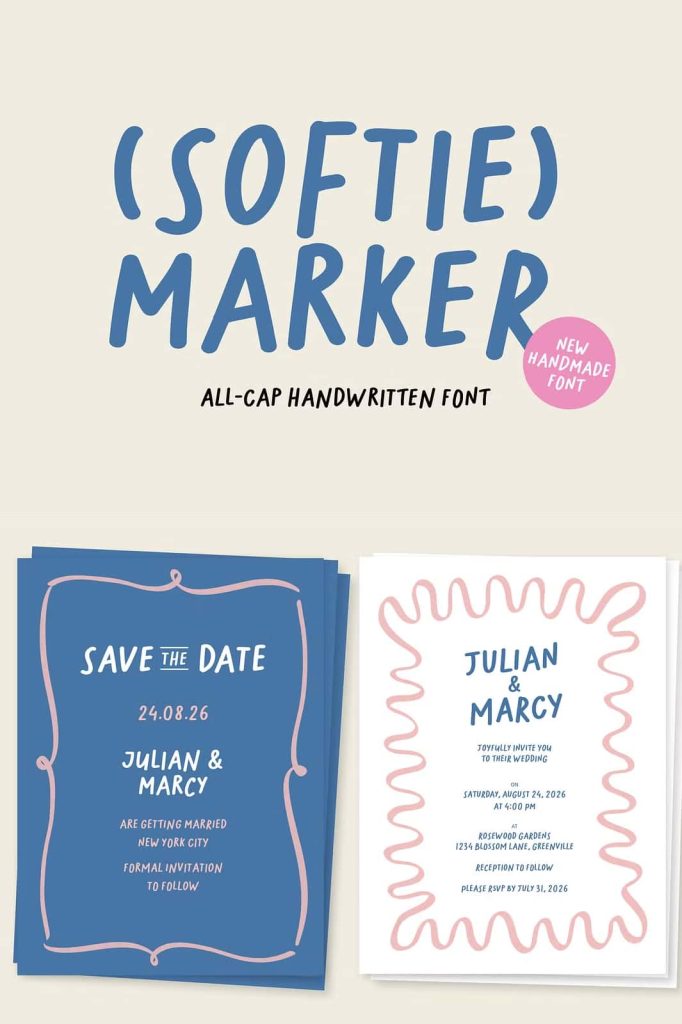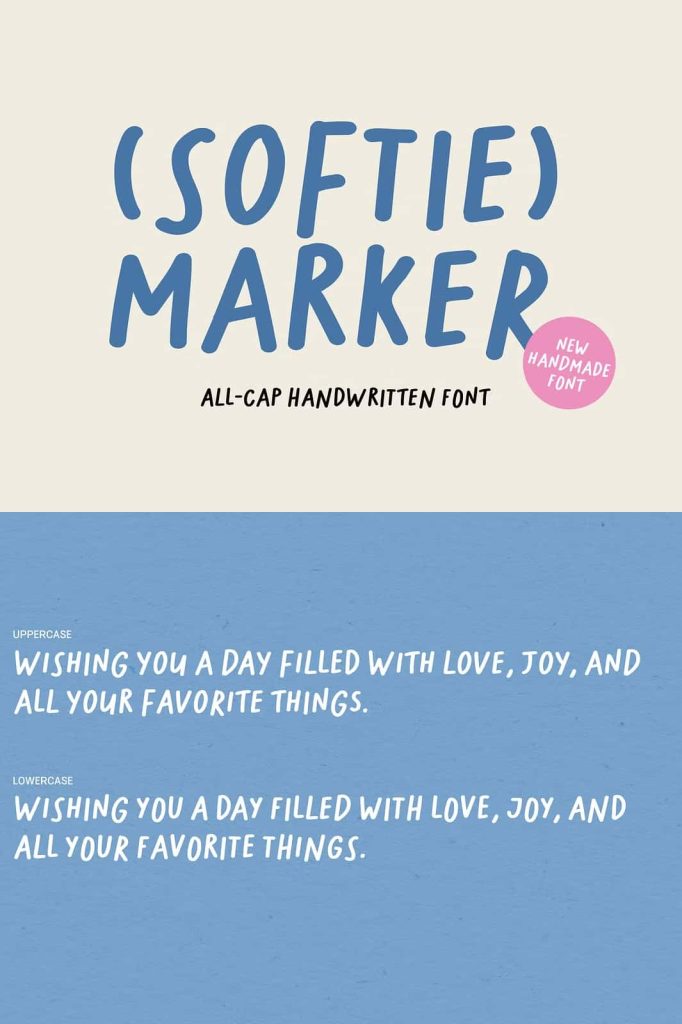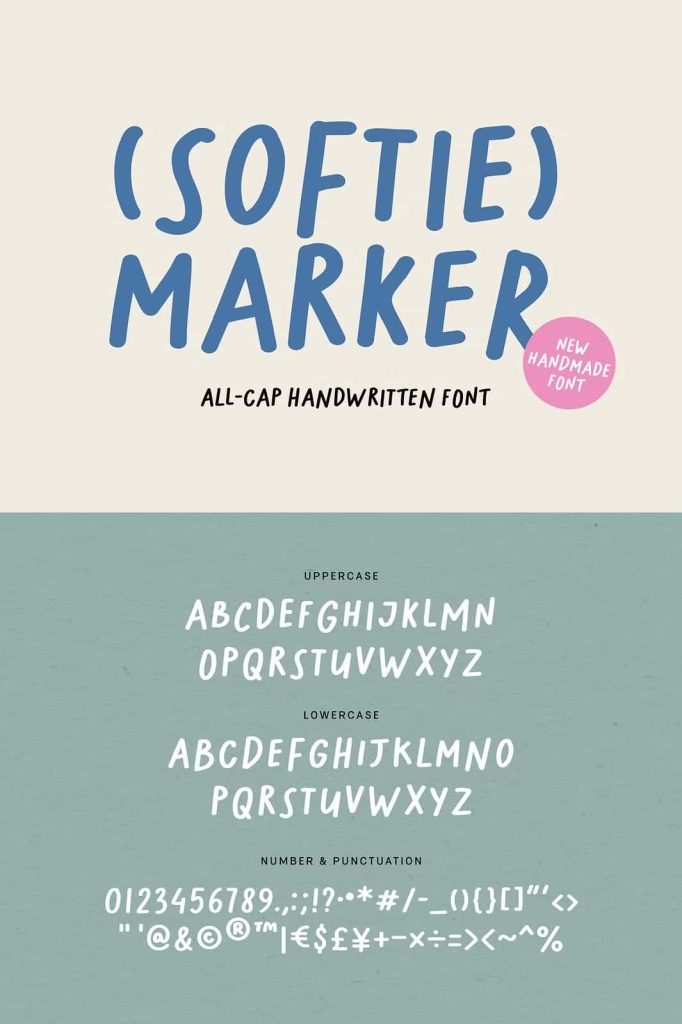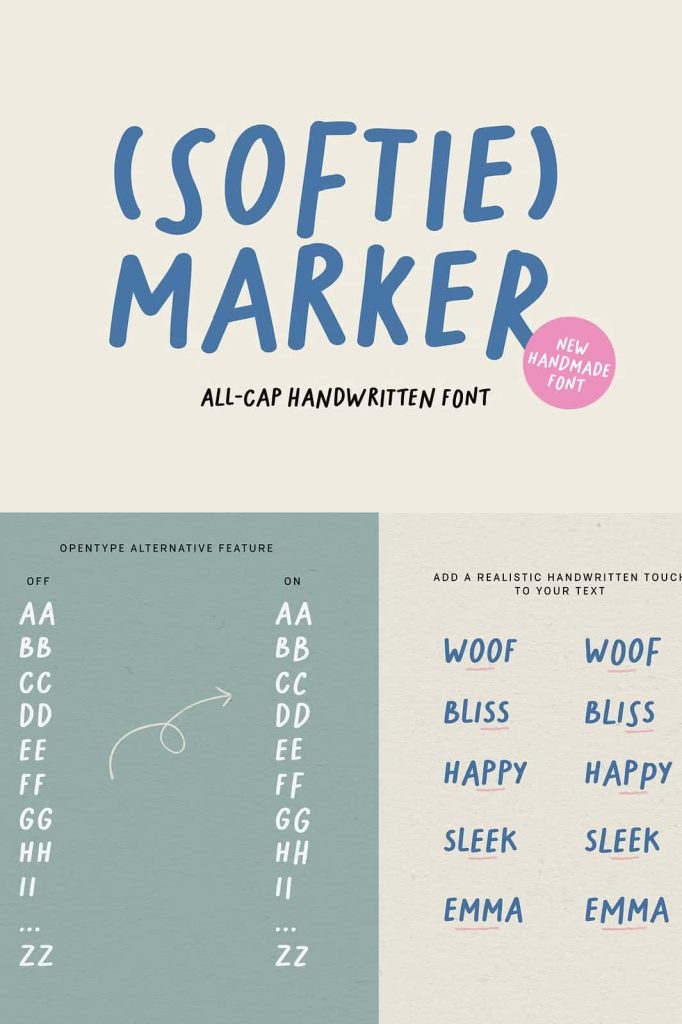
SOFTIE MARKER | Handwritten FontleastedAugust 1, 2025Fonts Softie Marker is a maker-style handwritten font. Perfect for adding a personal touch to your projects Download